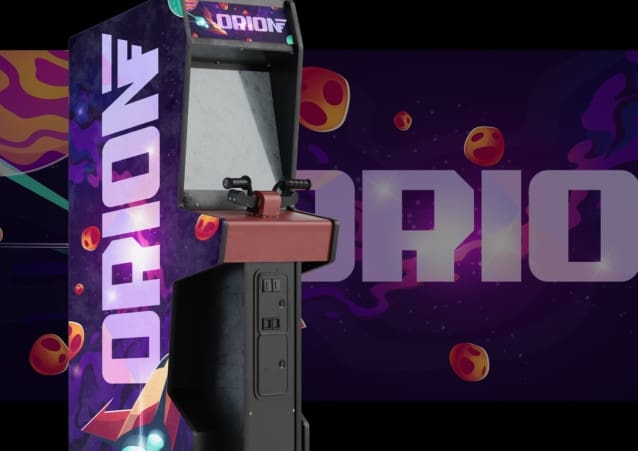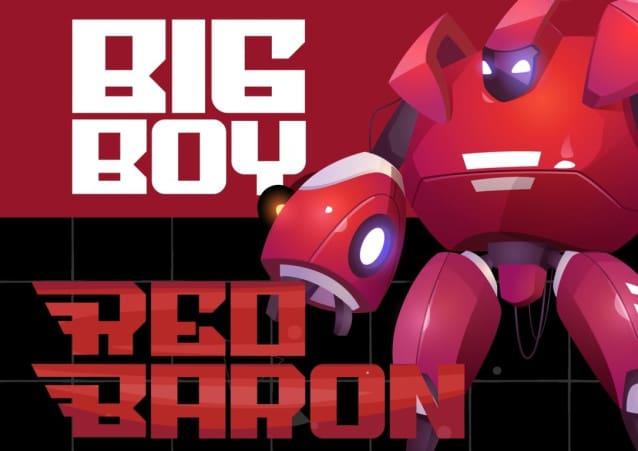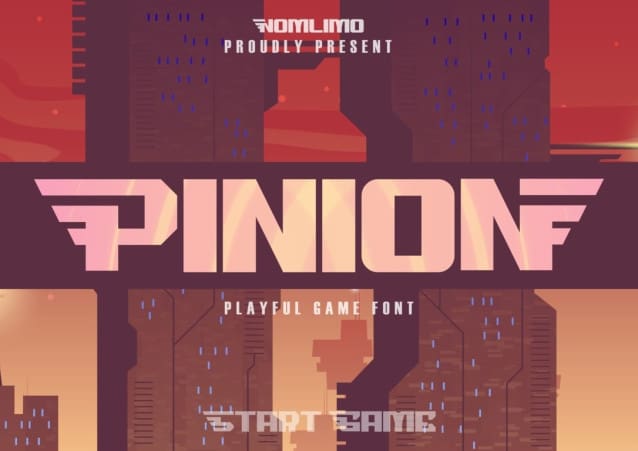
Pinion Font
Pinion Font, a retro-inspired display font that exudes a sense of boldness and impact in design. With its futuristic aesthetics, Pinion captures the essence of dynamic and versatile style, seamlessly merging retro and modern elements. Let Pinion be the driving force behind your designs, creating a striking and memorable visual experience.